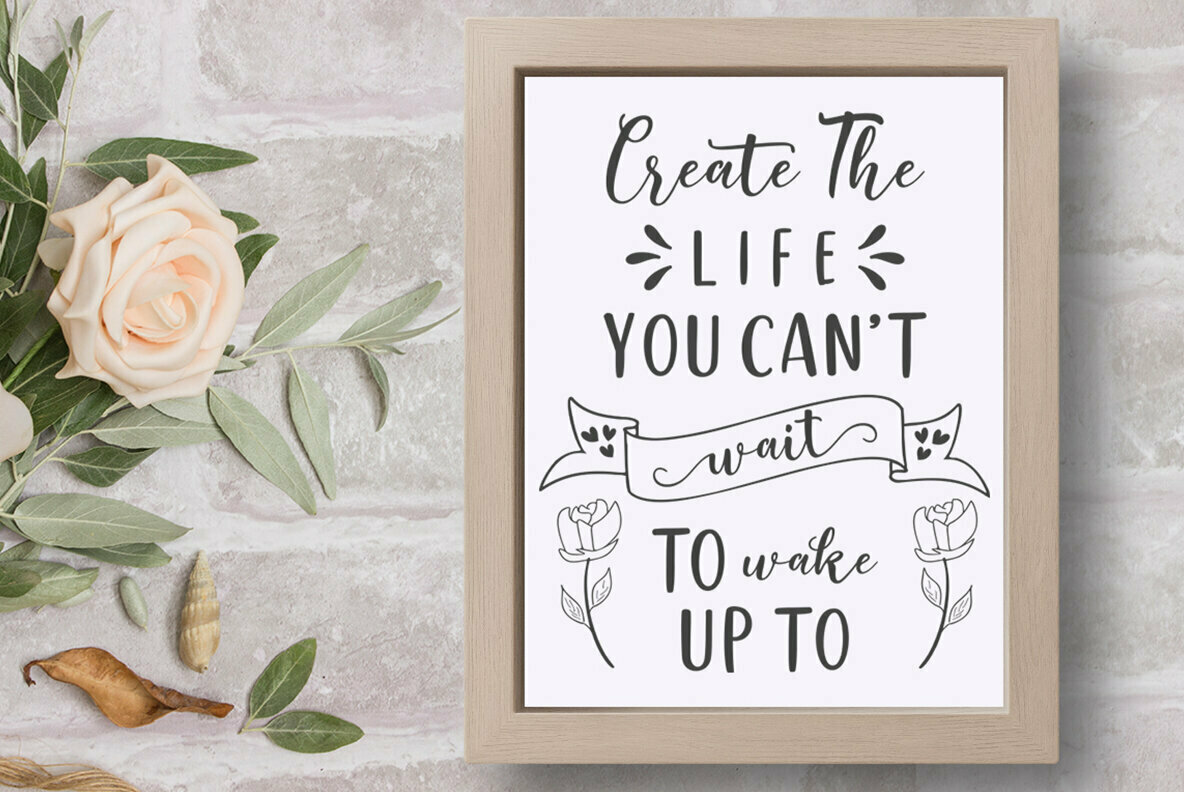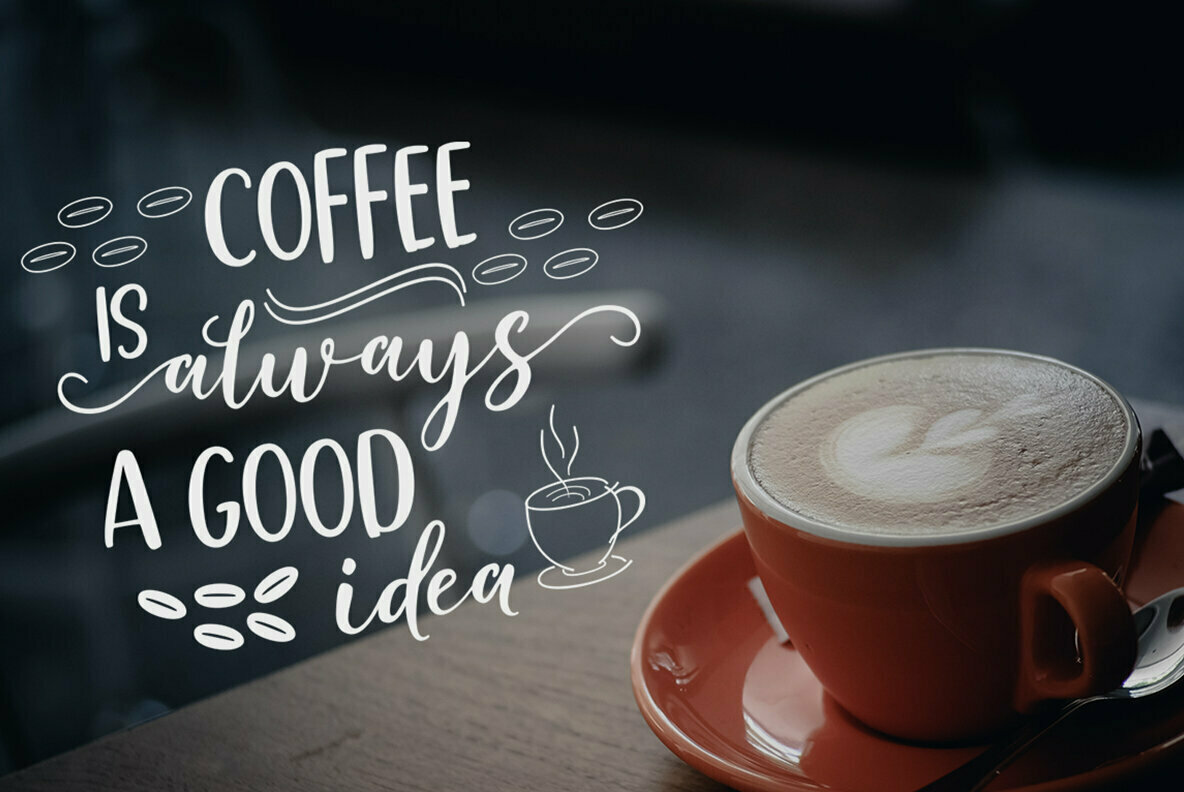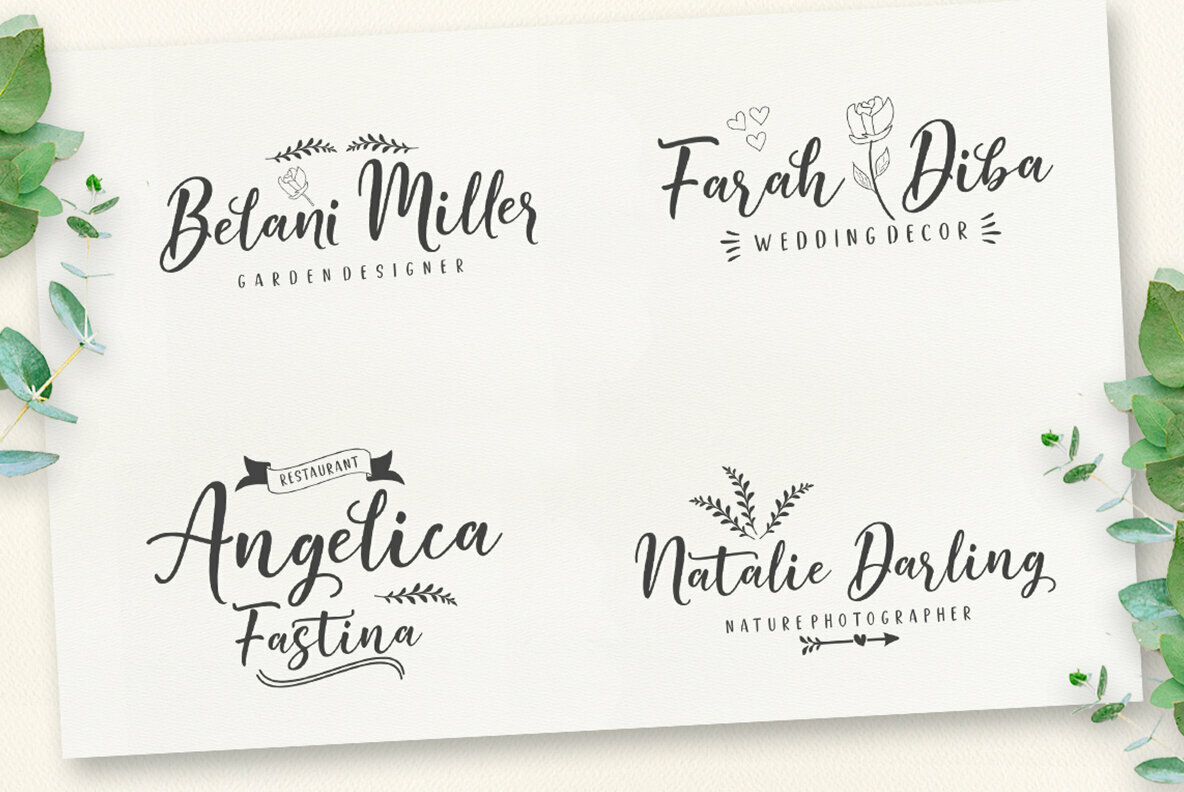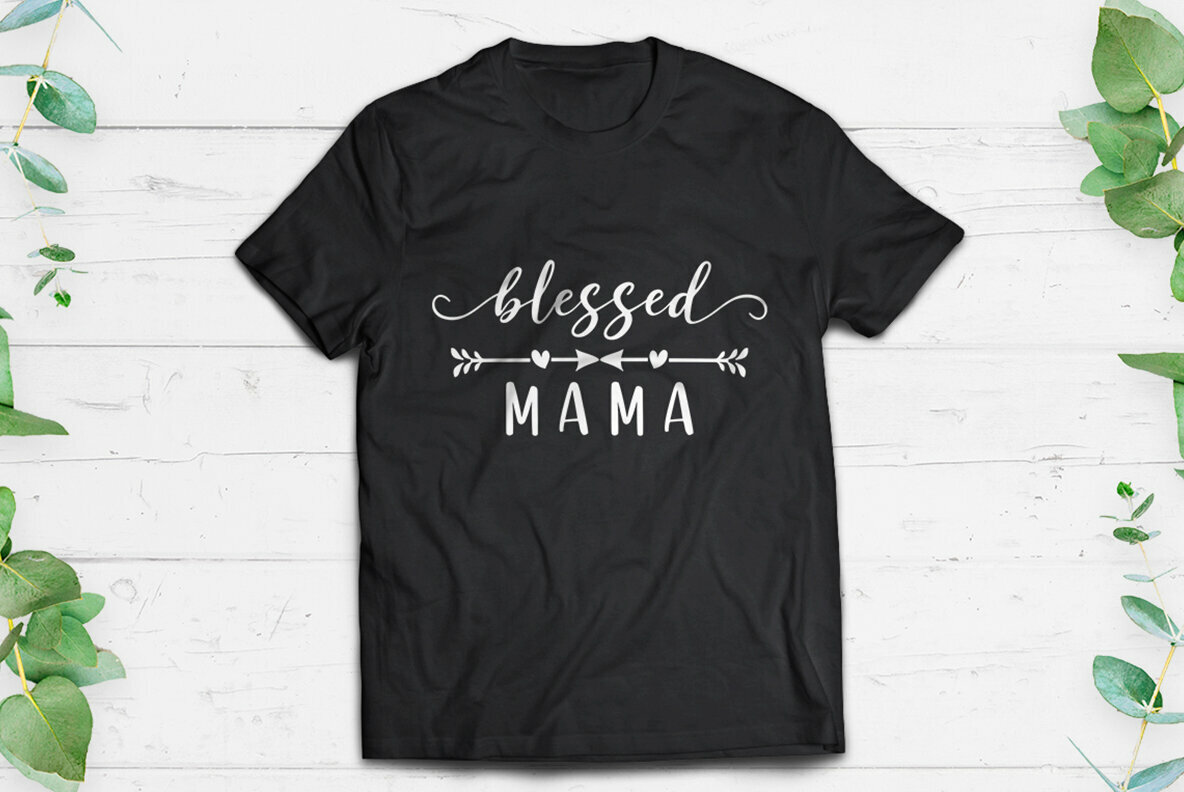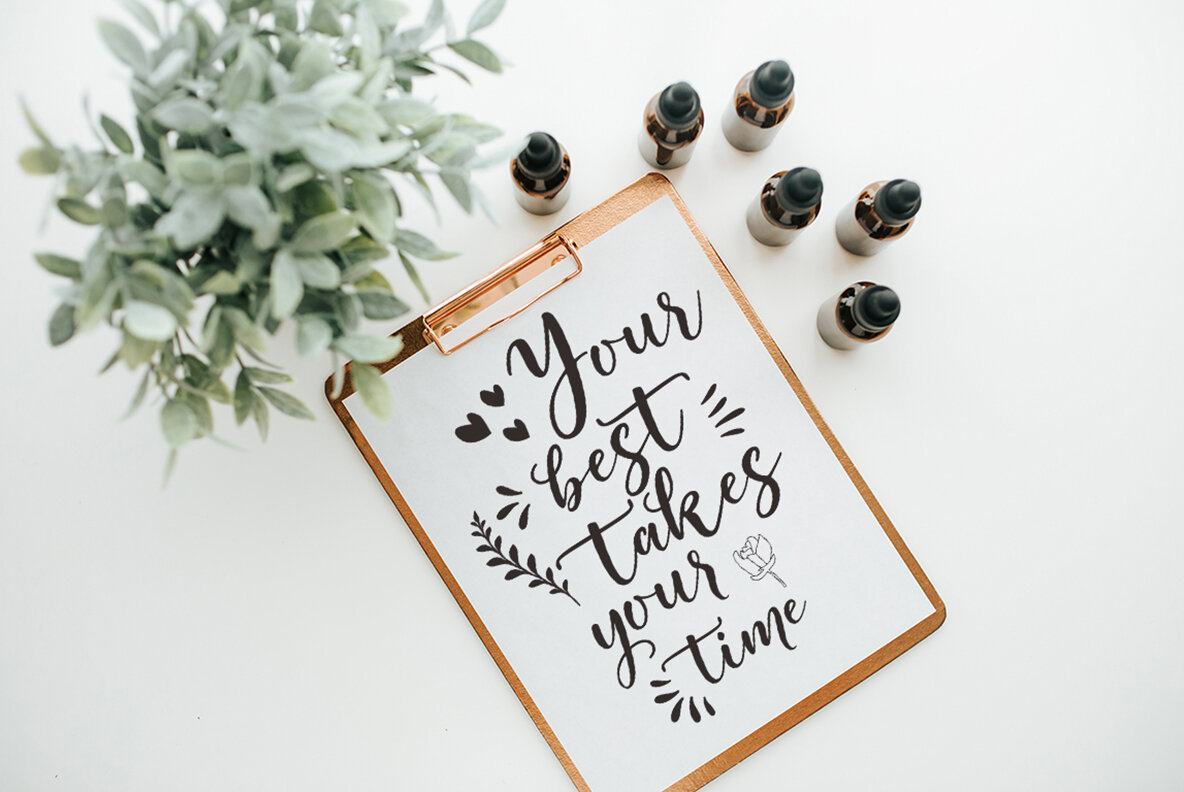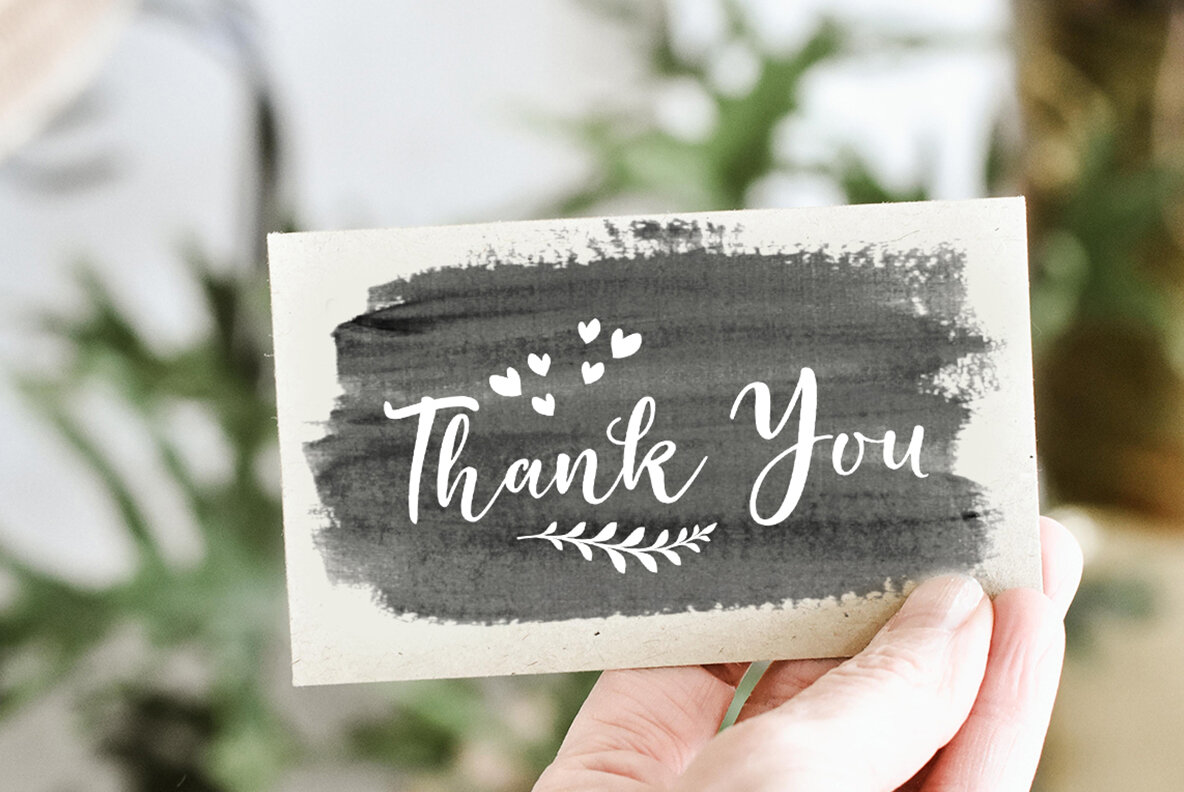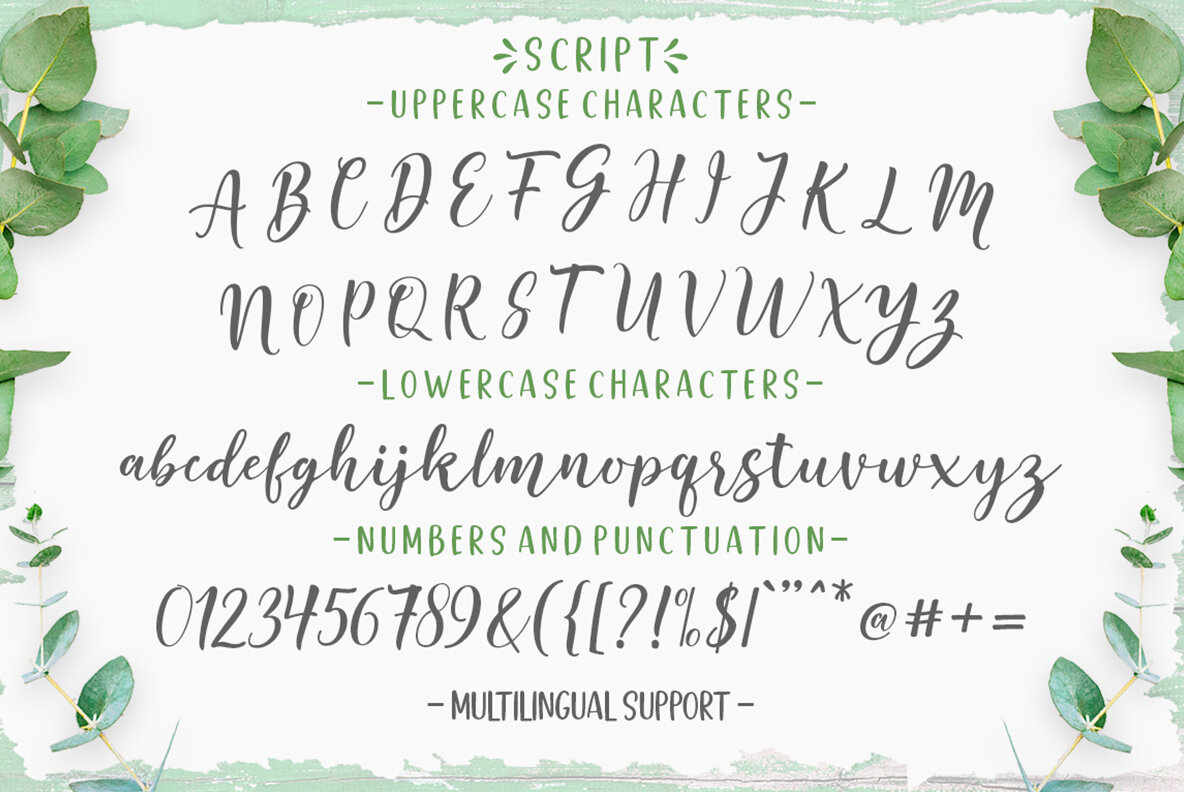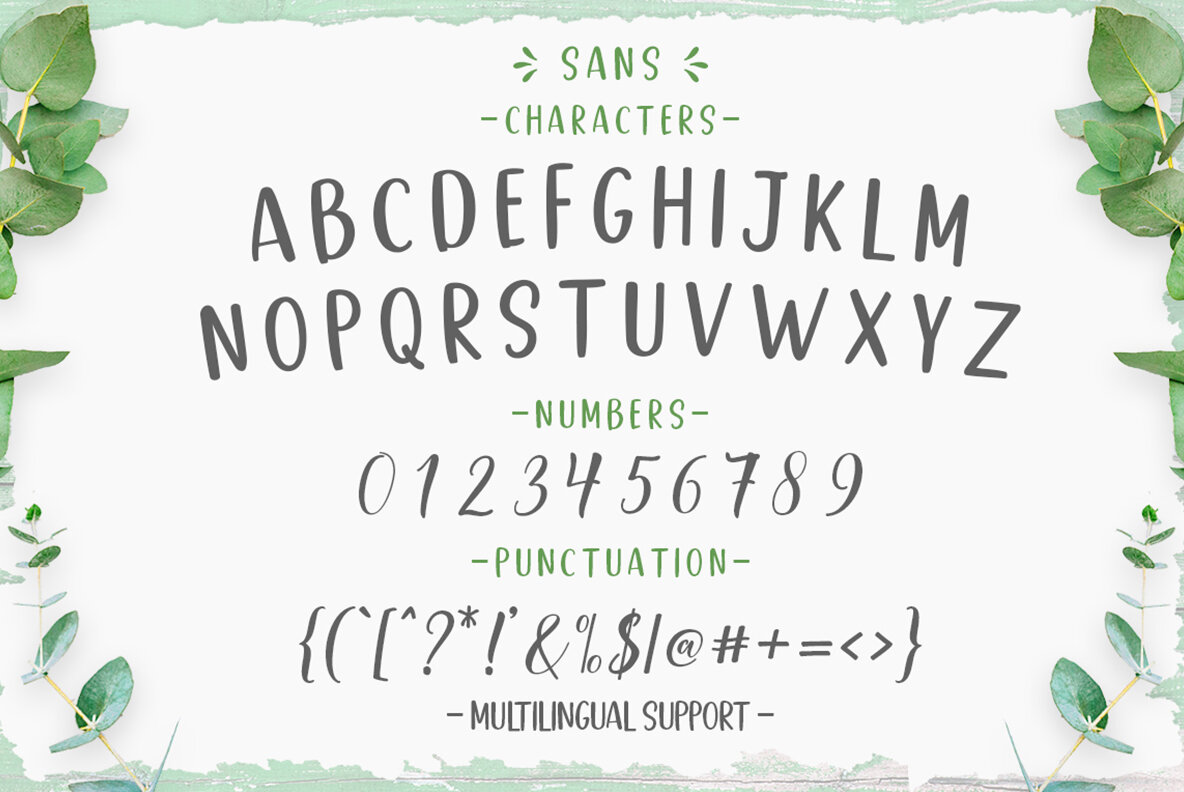
Good Selection Font
Good Selection by Megatype offers a dynamic blend of modern script styles, providing a comprehensive toolkit for diverse creative projects. From playful and informal to sweetly romantic, this font duo infuses your designs with charm and personality. Whether you’re crafting logos, web designs, or invitations, Good Selection ensures a polished result.Good Selection: Versatile Fonts Duo with Modern Charm